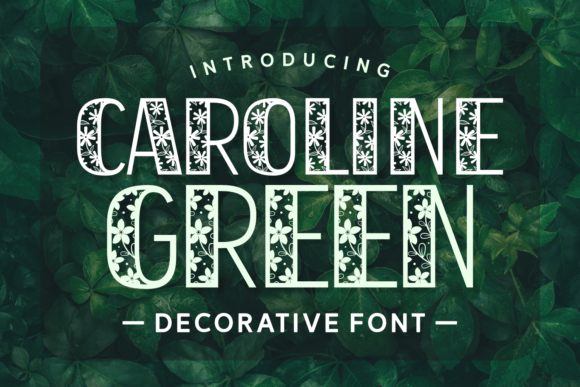
In a world clamoring for individuality, your designs deserve a voice that speaks volumes. Enter Caroline Green, the decorative font family that transforms your creations into breathtaking masterpieces. Inspired by nature's delicate touch, each letter blooms with intricate flower patterns, adding a captivating charm to every word.
With Caroline Green, your designs transcend the ordinary, embracing an allure that captivates and enchants. Picture wedding invitations adorned with names that dance like poetry, thank-you cards blooming with gratitude, and logos that blossom with elegance. This font is the perfect brushstroke for your creative canvas, adding a dash of magic to every project.
Transport yourself to a realm of boundless creativity, where Caroline Green weaves its spell on your designs. Create quotes that resonate with beauty, greeting cards that burst with warmth, and business cards that leave a lasting impression. Unveil a world where your designs blossom into works of art, each stroke infused with the essence of nature's artistry.
Unleash the power of Caroline Green and let your designs bloom with unparalleled splendor. Embrace the intricate details, the delicate curves, and the enchanting flower patterns that bring your words to life. As you explore the vast possibilities of this decorative font, discover a new level of creative expression, where elegance and originality intertwine.